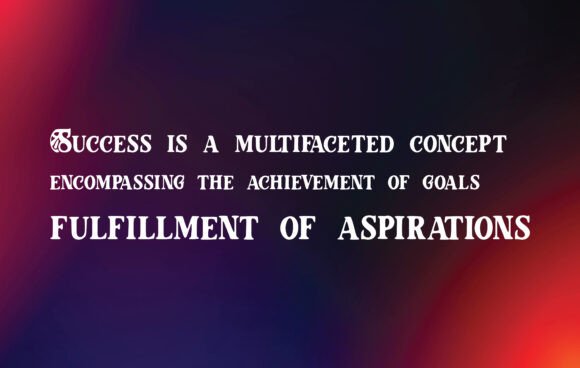
Corbin Font: Elevate Your Creative Projects with Elegance and Sophistication
In the realm of typography, fonts play a pivotal role in conveying messages, expressing creativity, and capturing the essence of a brand or design. Among the myriad of fonts available, Corbin stands out as a distinguished serif font that has garnered attention for its unique blend of elegance and versatility. This article aims to explore the Corbin font in depth, understanding its characteristics, and how it can be a game-changer for designers and creatives looking to elevate their projects.
What is Corbin Font?
Corbin is a lovely and beautiful serif font, designed to infuse a touch of sophistication and class into any design project. Its distinctive features and elegant appearance make it an excellent choice for a wide range of applications, from logo creation and branding to crafting compelling quotes and textual content.
The Corbin font boasts a classic serif design with subtle nuances that set it apart from more traditional serif fonts. Its letters are meticulously crafted to ensure readability while offering a unique aesthetic appeal that can enhance the visual appeal of any project.
Key Features of Corbin Font
- Elegant Serif Design: Corbin’s serif design adds a layer of elegance and sophistication, making it perfect for projects that require a touch of class.
- Versatility: This font is incredibly versatile, suitable for a variety of projects including logos, branding materials, quotes, and more.
- Readability: Despite its elegant design, Corbin offers excellent readability, ensuring that your message is conveyed clearly and effectively.
- Unique Aesthetic: Corbin’s unique aesthetic sets it apart from other serif fonts, providing designers with an opportunity to create distinctive and memorable designs.
Exploring the Uses of Corbin Font
Corbin’s versatility and aesthetic appeal make it suitable for a wide array of design projects. Here are some of the most popular uses of Corbin font:
- Logo Creation: The distinctive and elegant design of Corbin makes it an excellent choice for creating eye-catching logos that stand out.
- Branding: For brands looking to convey a sense of elegance, sophistication, and reliability, Corbin can be a valuable asset in creating a consistent brand image.
- Quotes and Typography: Corbin’s readability and aesthetic appeal make it perfect for typography projects, including quotes, posters, and social media graphics.
- Packaging Design: The font’s elegance and versatility also make it suitable for packaging designs, especially for luxury products.
The Benefits of Using Corbin Font
Choosing Corbin font for your design projects comes with a multitude of benefits, including:
- Enhanced Visual Appeal: Corbin can significantly enhance the visual appeal of your designs, making them more engaging and memorable.
- Improved Readability: The font’s design ensures that your textual content is not only visually appealing but also easy to read.
- Versatility: Corbin’s versatility means it can be used across a variety of projects, making it a valuable addition to any designer’s toolkit.
- Professionalism: The elegant design of Corbin can lend a sense of professionalism to your designs, which is particularly beneficial for branding and business-related projects.
How to Use Corbin Font Effectively
To maximize the potential of Corbin font in your design projects, consider the following tips:
- Pair with Complementary Fonts: When using Corbin alongside other fonts, choose fonts that complement its elegant and sophisticated nature.
- Adjust Size and Weight: Experiment with different sizes and weights of Corbin to create visual hierarchy and emphasis in your designs.
- Consider Color: The color of your text can significantly impact the effectiveness of Corbin. Choose colors that complement the font and enhance its appearance.
- Maintain Consistency: For branding and related projects, ensure consistent use of Corbin across all materials to create a cohesive brand image.
Corbin font, with its elegant serif design, versatility, and readability, presents a powerful tool for designers and creatives. Whether you’re looking to create eye-catching logos, develop a strong brand identity, or craft compelling textual content, Corbin can elevate your projects to new heights. By understanding its features, uses, and how to effectively incorporate it into your designs, you can unlock the full potential of Corbin font and bring your creative ideas to life with elegance and sophistication.